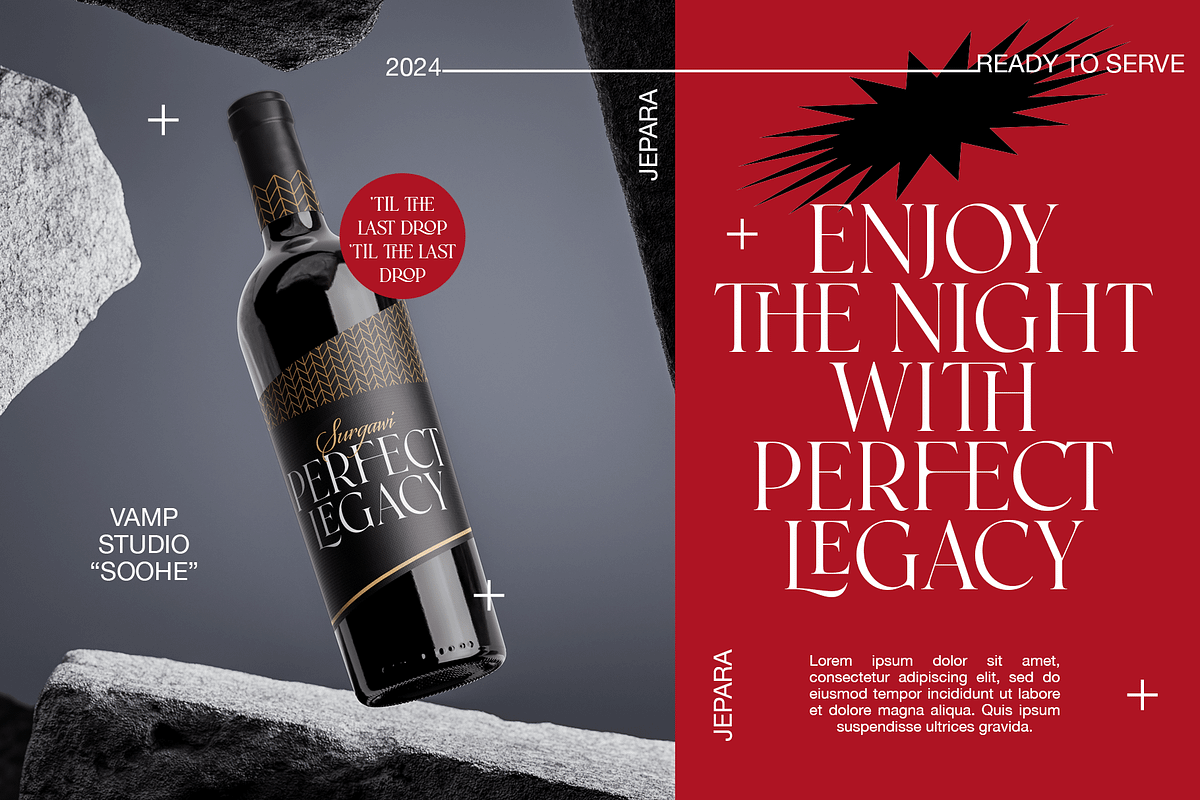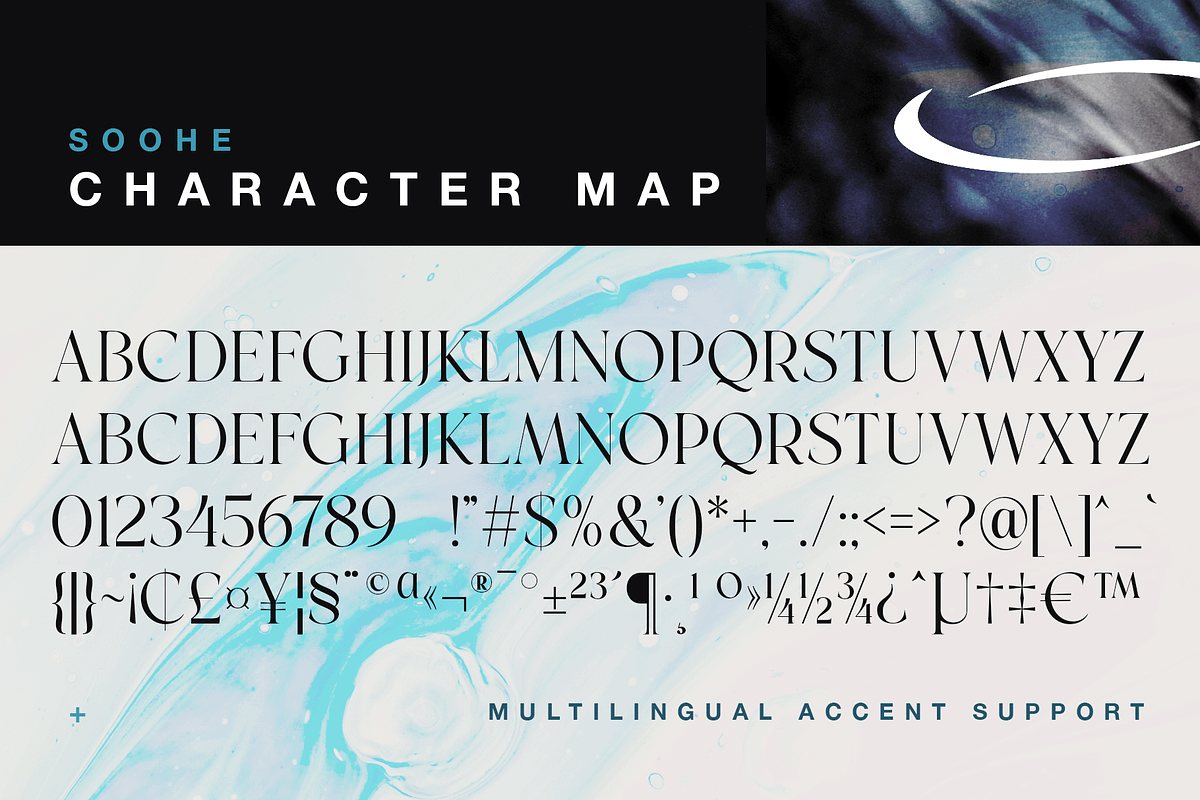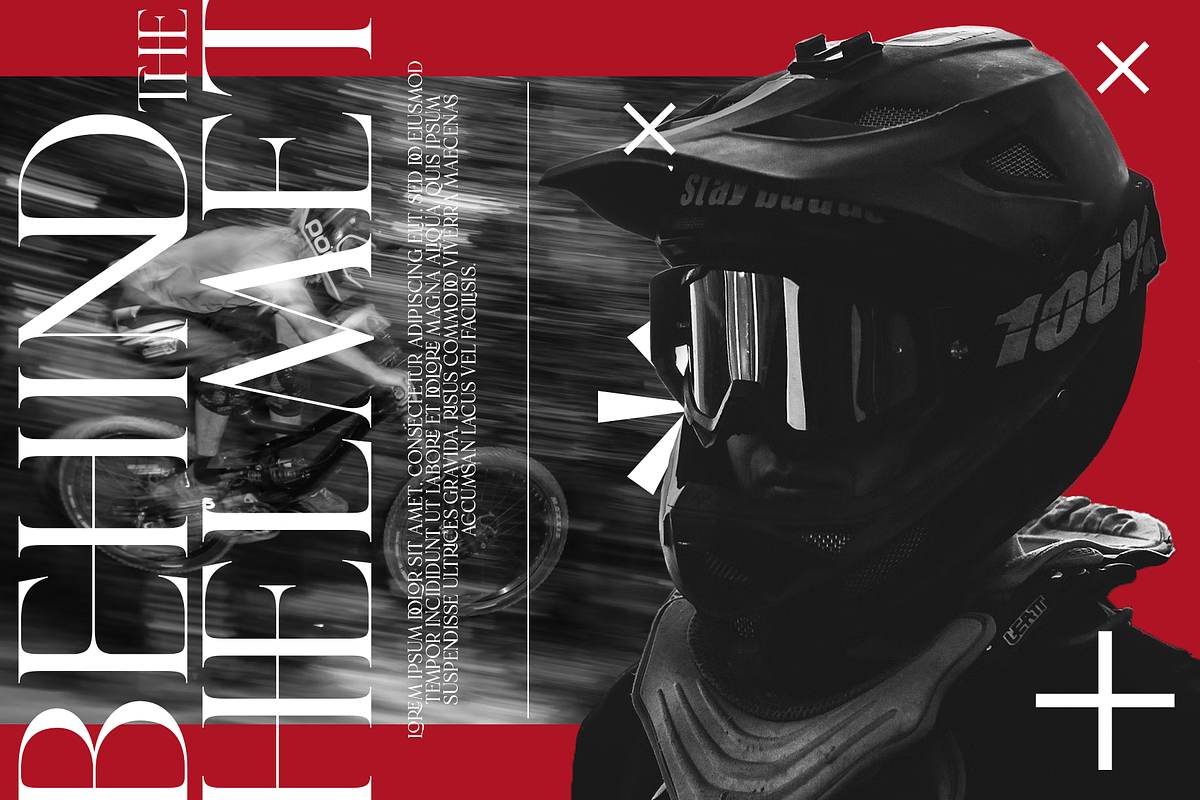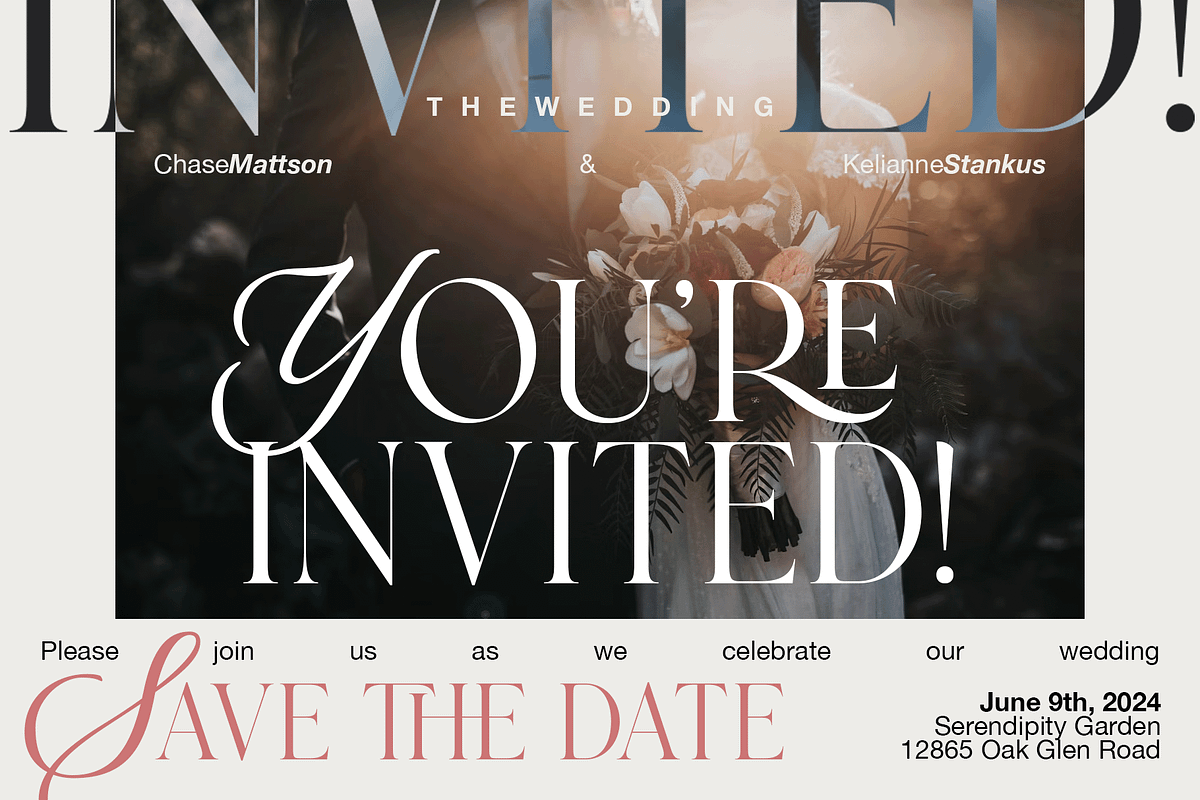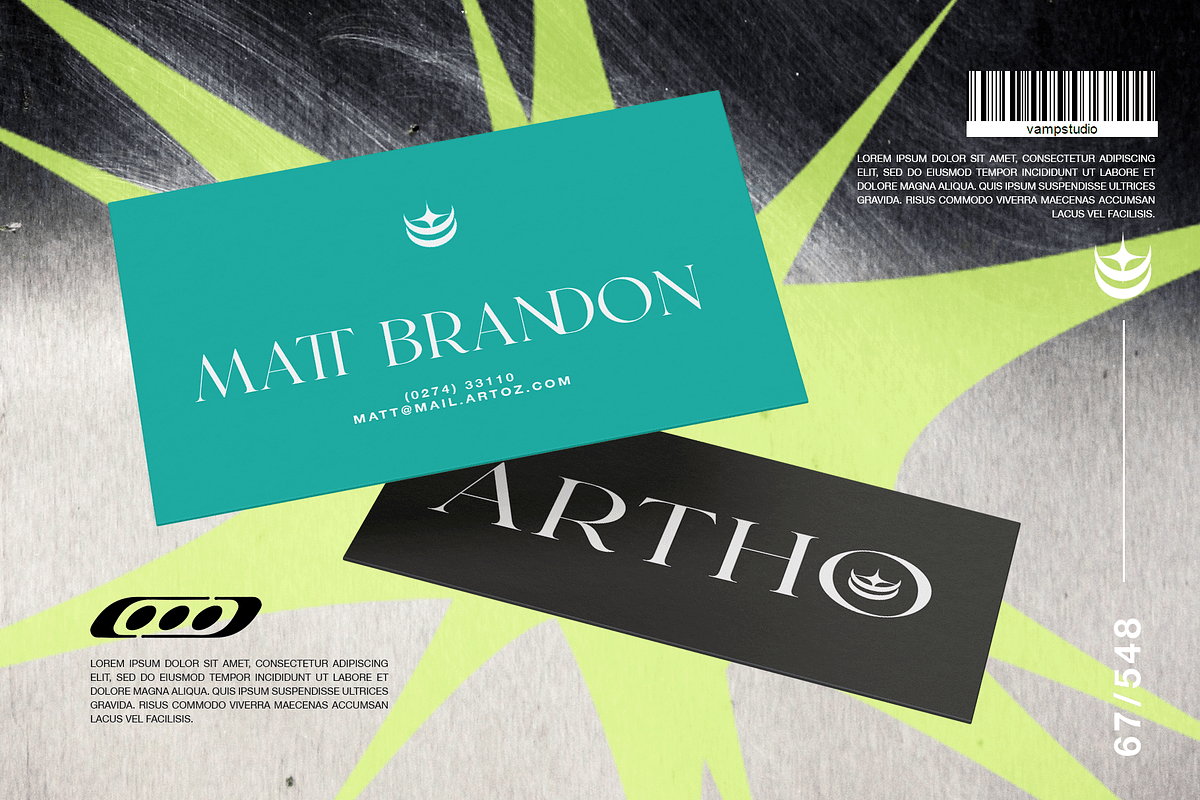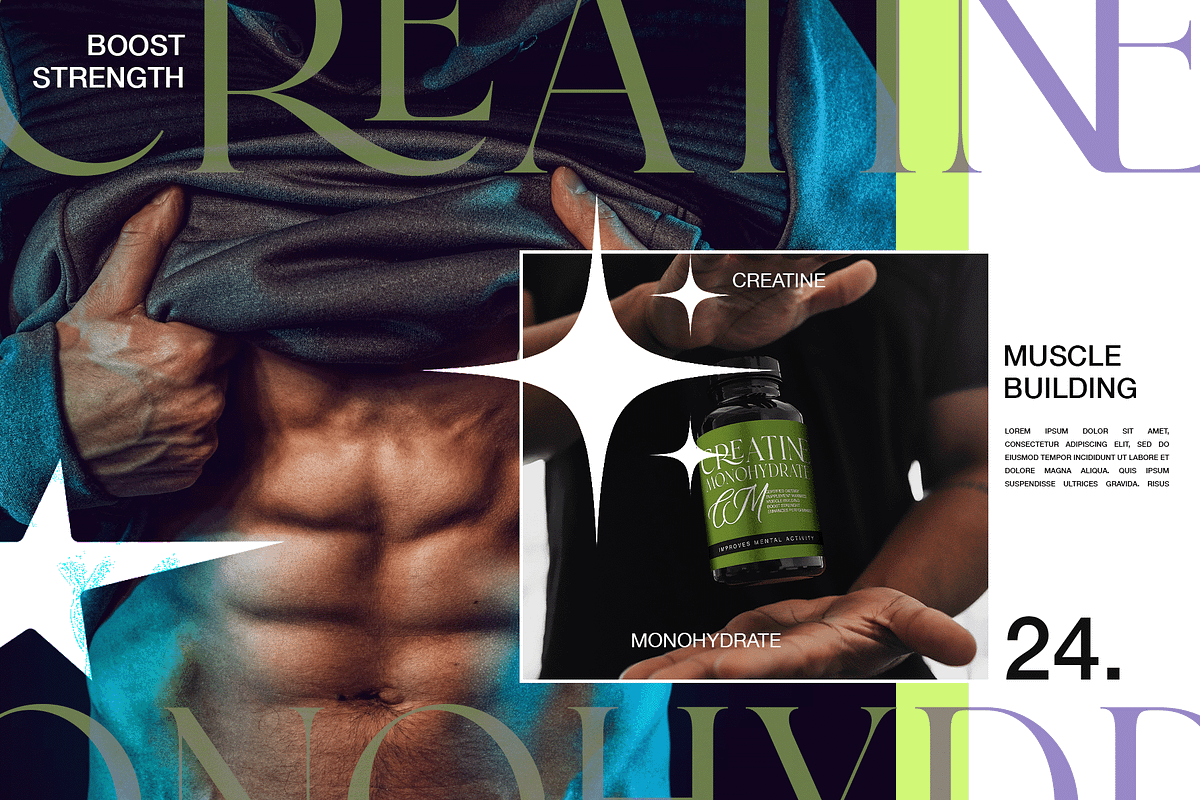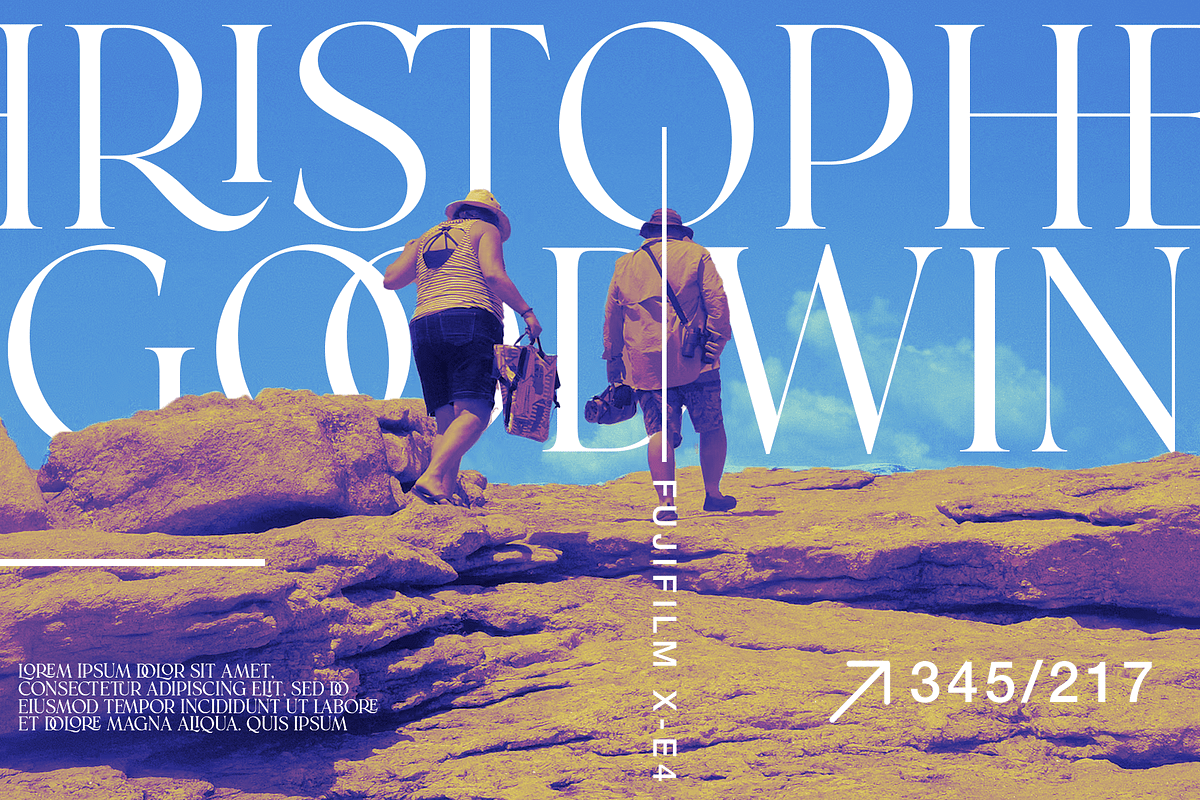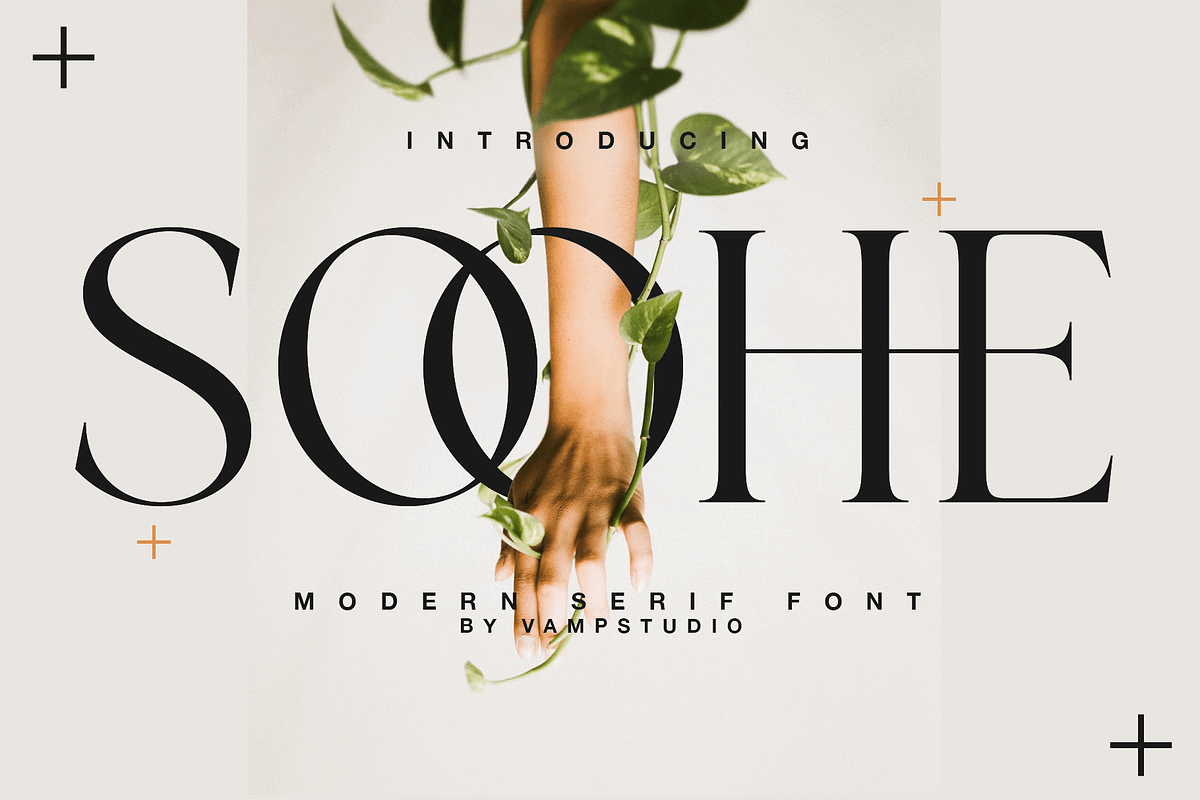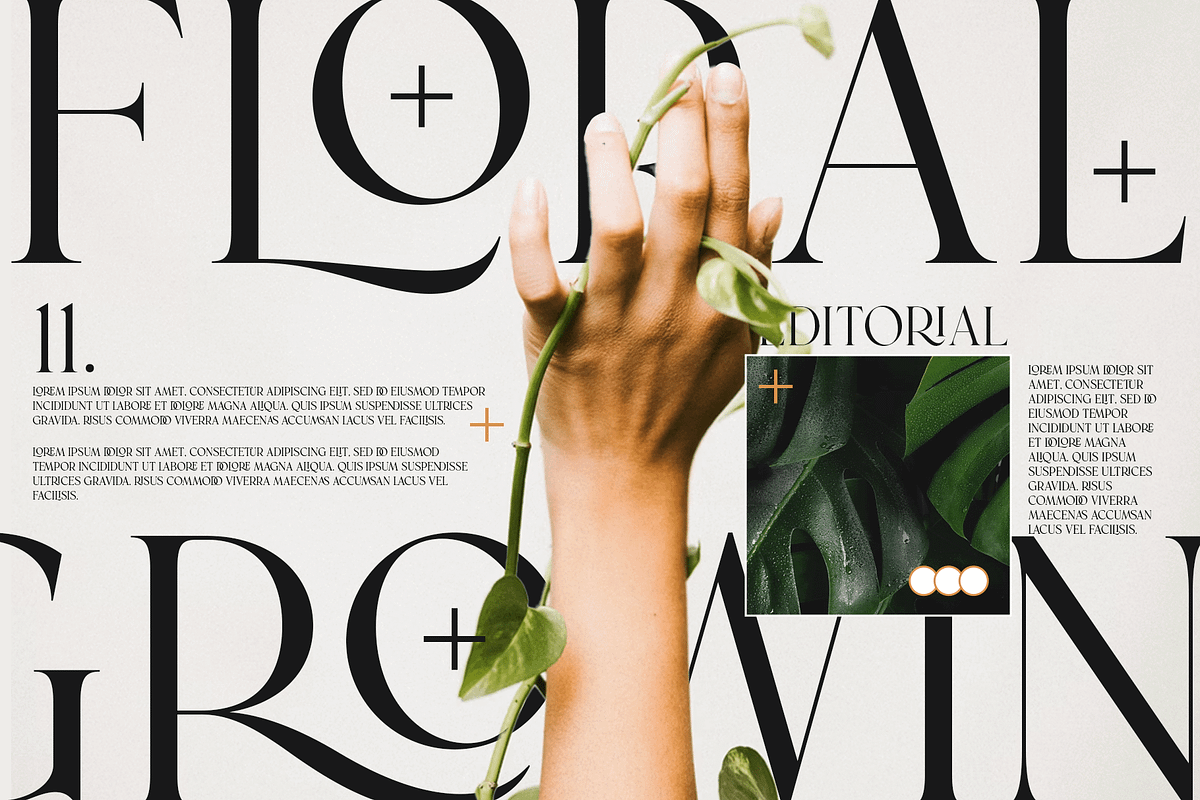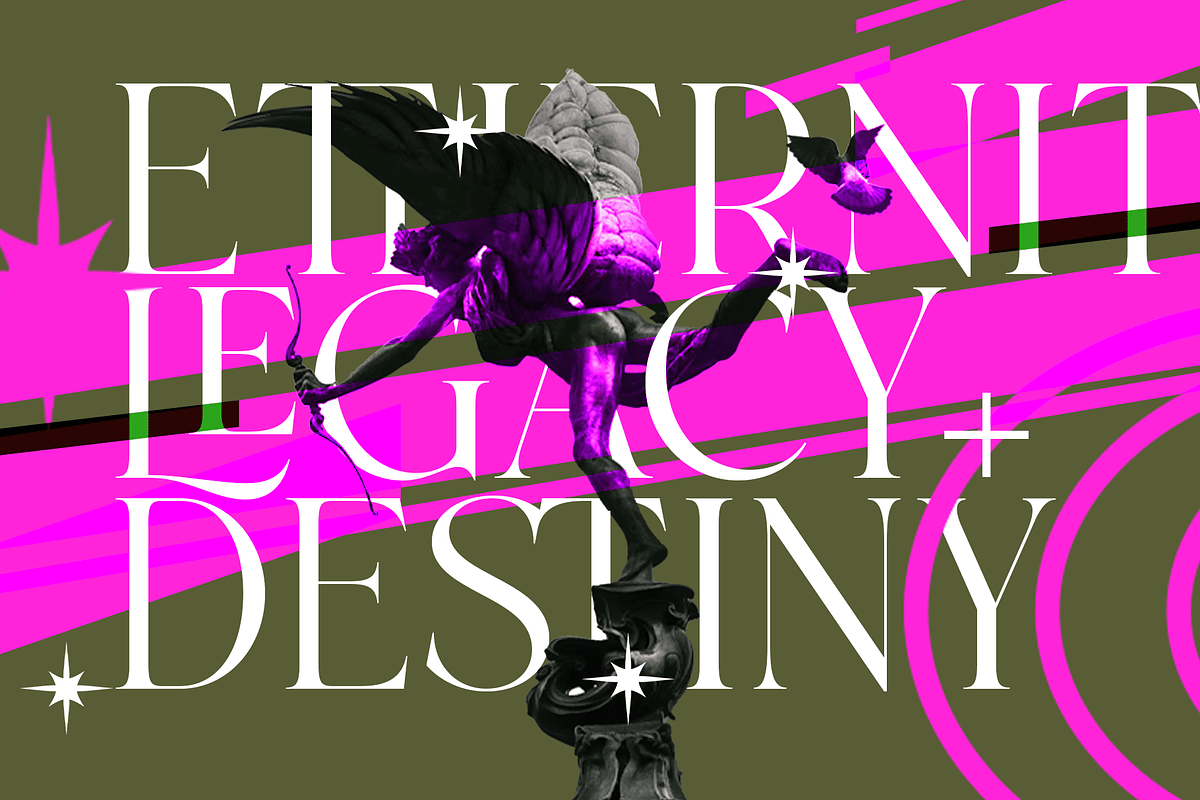
Soohe Modern Serif
Soohe is a modern elegant serif typeface. This font looks very simple, clean, and elegant. Specially designed by skilled hands makes this font is the perfect fit for all your big projects.
Soohe is perfect for branding projects, logo, wedding designs, social media posts, advertisements, product packaging, product designs, label, photography, watermark, invitation, stationery and any projects that need handwriting taste.